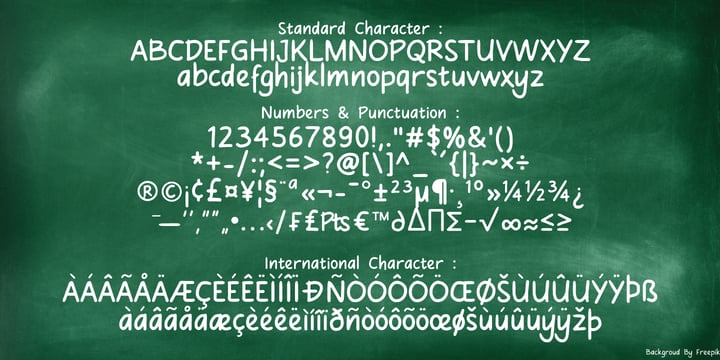
Comicbon
by BaronWNM
The Comicbon Font Family was designed by Rahmad Mulyadi and published by BaronWNM. Comicbon contains 1 styles. More about this family
Comicbon is a handwritten font that simultates text being writen on a comic, ads, creating logos, branding, teaching websites/apps/games, and many more.
Designers: Rahmad Mulyadi
Foundry: BaronWNM